Custom Typefaces for Facialteam (2022)
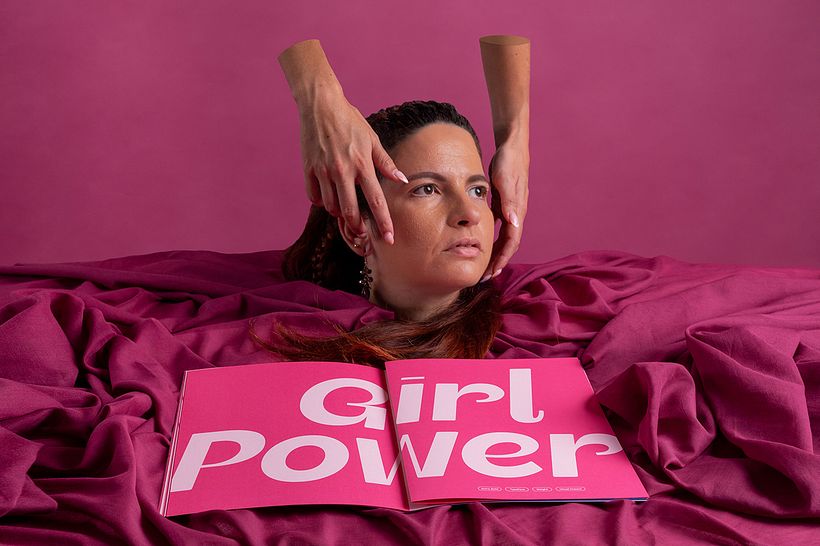
Custom Typefaces for Facialteam - Facial Feminization Surgery
by KOBU™ Foundry
Designing a brand universe for a company with the level of service that Facialteam provides to transgender women required us to step up the game.
The decision was very clear: we needed to design custom typefaces to imprint this sense of uniqueness to Facialteam. Our type designer, Brígida Guerreiro, created three different typefaces: FT Headline™, FT Text™ and FT Icons™.
FT Headline™ is a digital typeface designed to be exclusively used on titles. Its grand and elegant design is a tribute to transgender women, visually exploring the sans serif charismatic beauty. Its weight contrasts best with the embedded humanist style and allows the message to stand out.
FT Text™ was created specifically for subtitles, body text and descriptions/captions.
It is an hybrid between the grotesque and humanist styles, resulting in a perfect match for readability. Additionally it offers a set of basic and special ligatures allowing sublime typographic compositions that perfectly suit subtitles.
FT Icons™ is a font designed to feature Facialteam’s iconography, allowing the team to easily apply the brand’s icons across print and digital touchpoints.